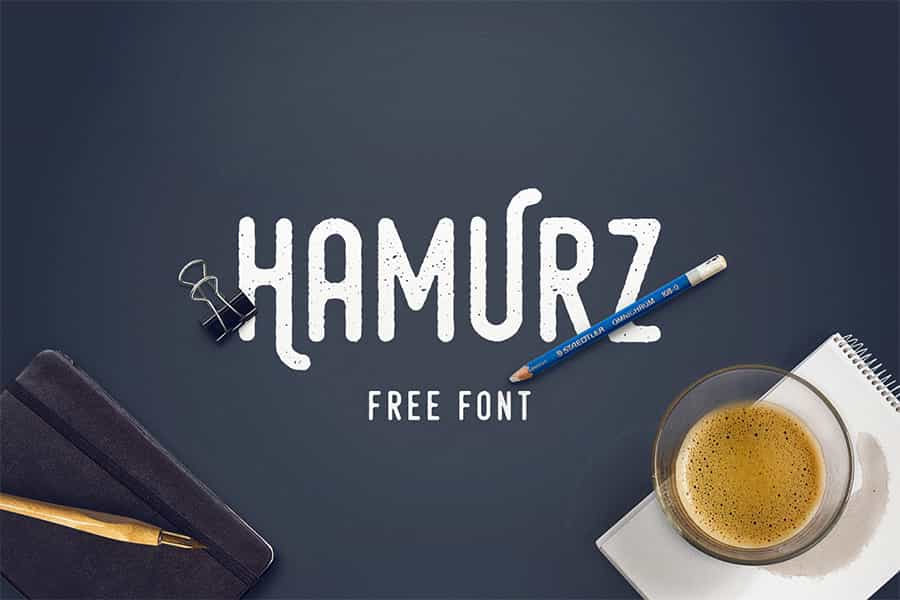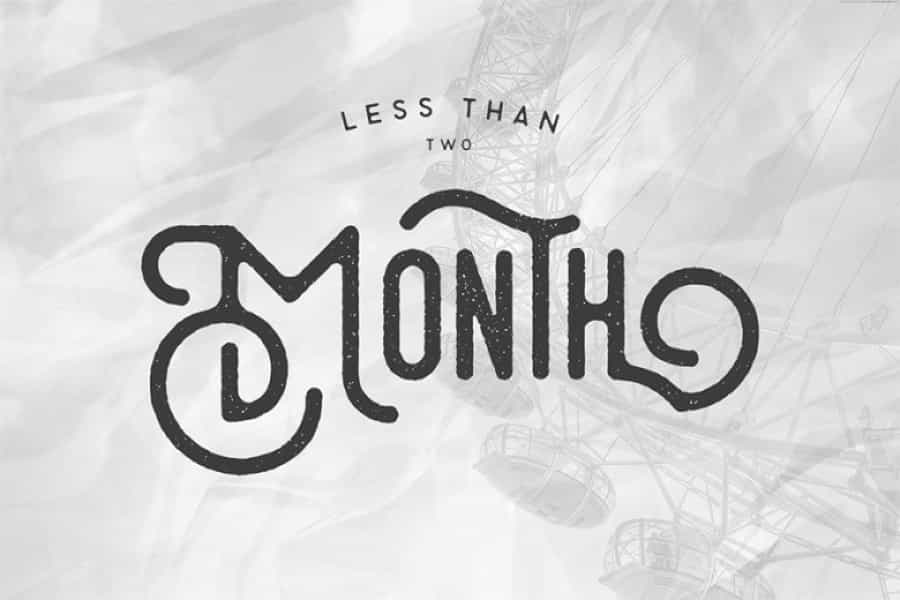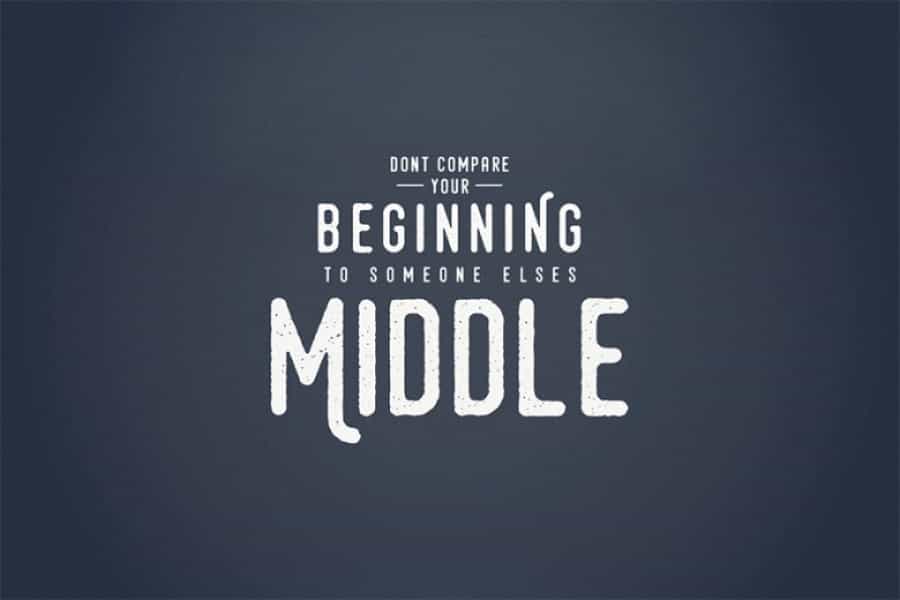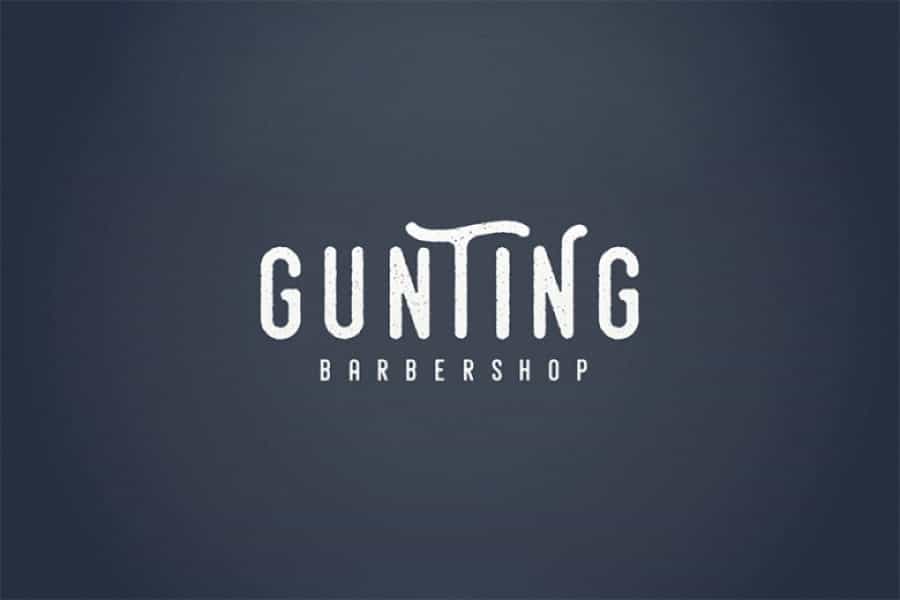
Hamurz Free font is the font inspired by the hipster style fonts used in vintage, in this case, it comes in rough edges and rounded shapes. Perfect for t shirt designs, badges/insignias, headings, logotype, letterpress, vintage, or any designs you may want to try it.